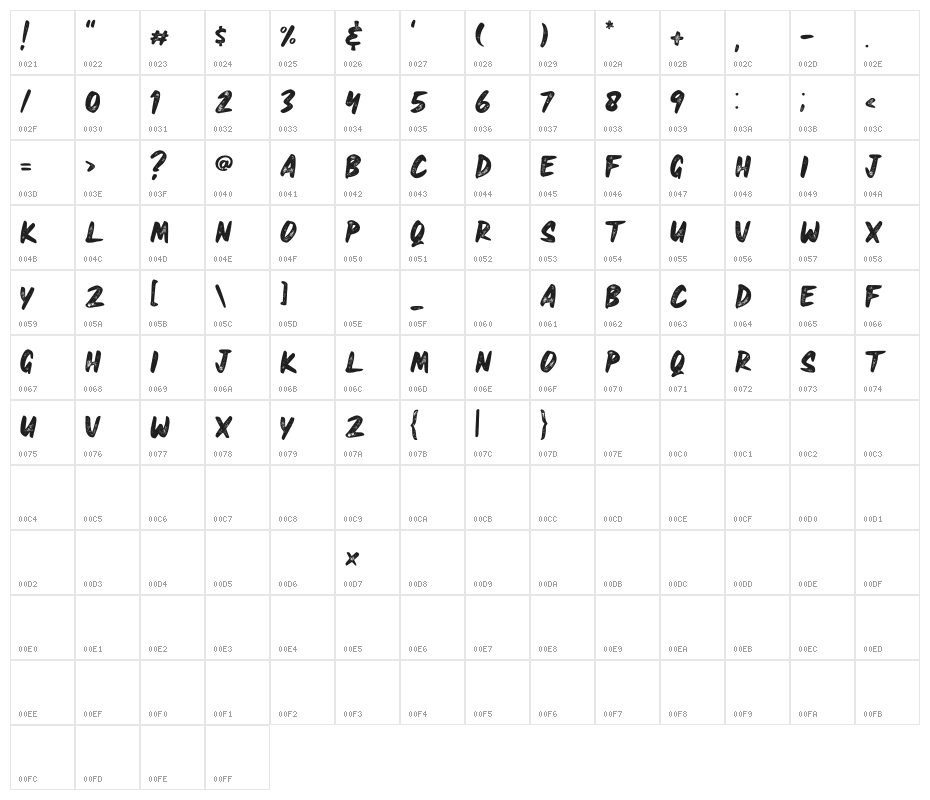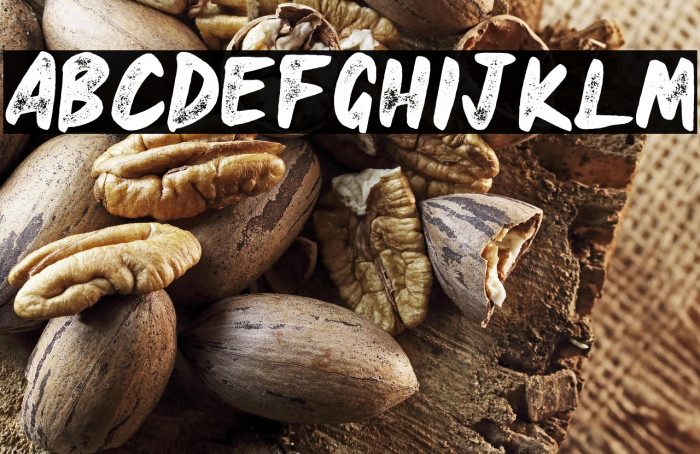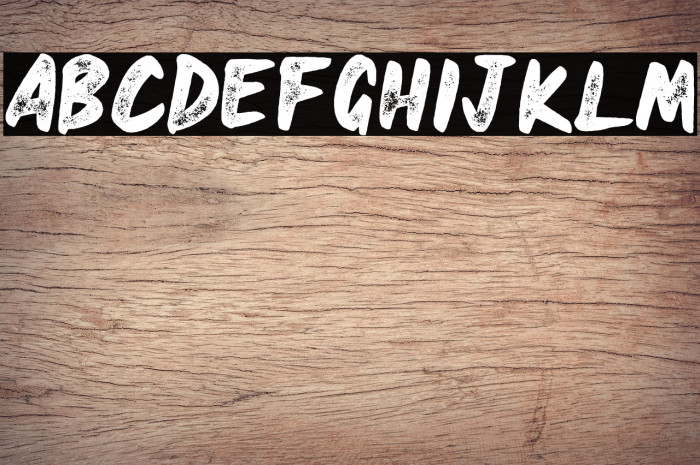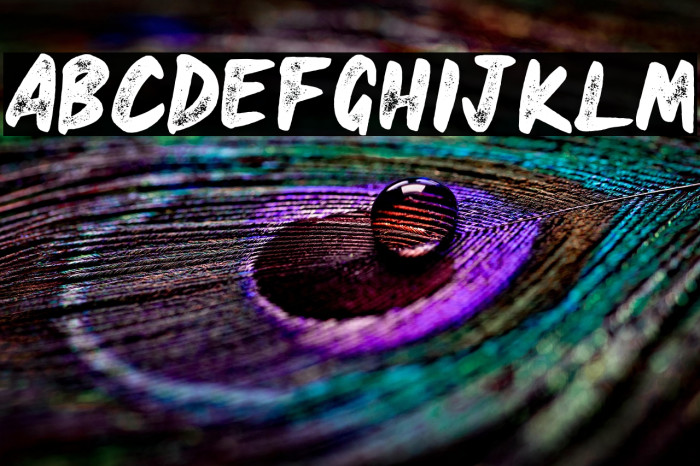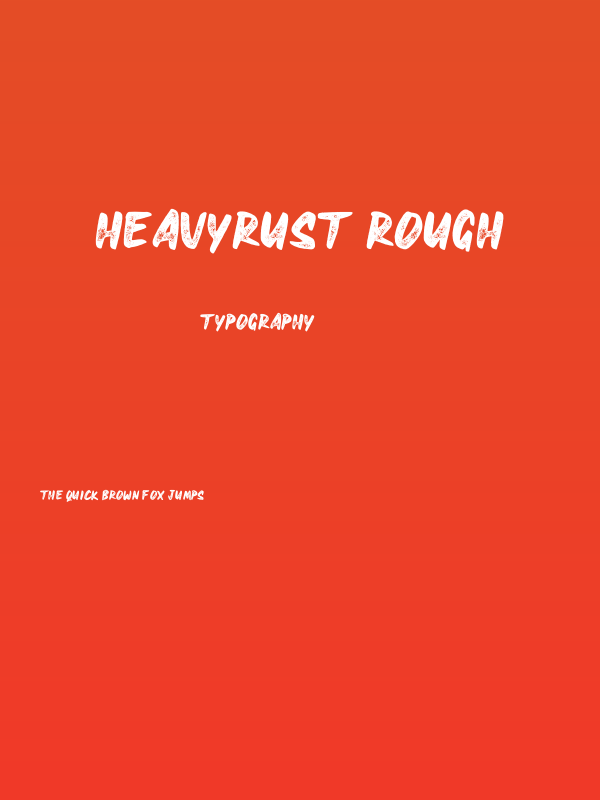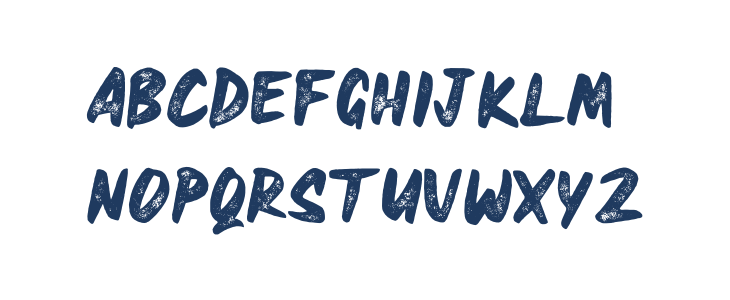
HEAVYRUST ROUGH Font
HEAVYRUST ROUGH Description
This font features a bold, rugged style with a distressed texture that gives it a weathered, vintage appearance. The characters are thick and slightly uneven, adding a hand-drawn, organic feel. The uppercase and lowercase letters maintain a consistent style, with rounded edges and a playful, dynamic form. Numbers and special characters follow the same aesthetic, ensuring a cohesive look across all glyphs. The texture within each character mimics a rough, worn-out surface, making it ideal for designs that require a rustic or grunge effect.
| Overall Style | Vintage |
| Proposed Projects | Ideal for posters, album covers, branding for rustic or vintage-themed products, and any design needing a bold, textured statement. |